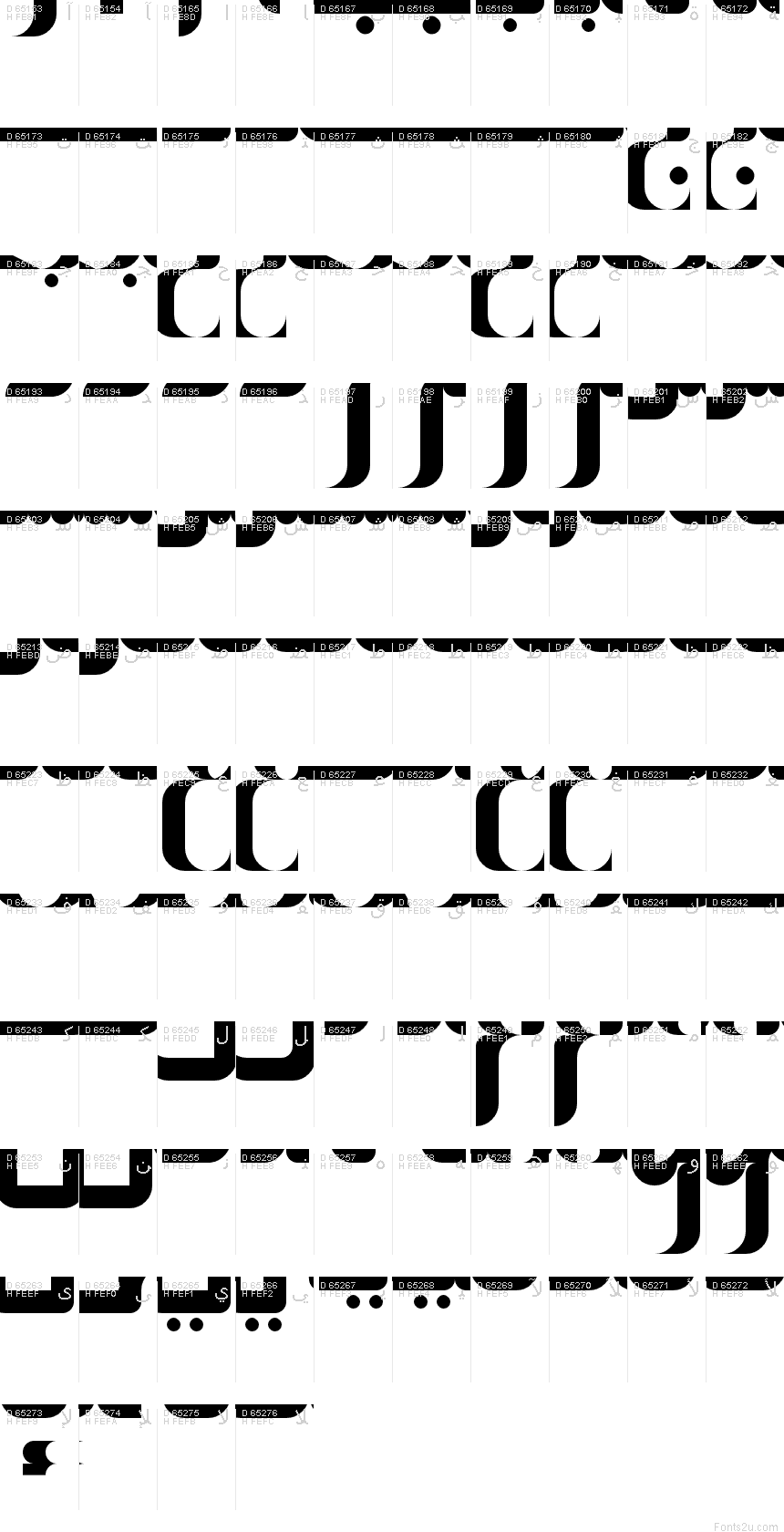
Abitype by abitart of FontShop International GmbH is a free modular Arabic display font built from dense curving shapes that interlock across the line. Broad rounded strokes, compact joins, and abrupt stepped edges make the lettering resemble cut paper assembled into a continuous pattern rather than conventional pen-drawn calligraphy.
Poster design is its clearest setting, particularly for cultural institutions exploring contemporary Arabic lettering, and it can also lend editorial publishing a dense modular texture. Its sculptural forms also suit album artwork and packaging whose imagery draws on geometry, ornament, and strong silhouettes. A single character can become an illustrated emblem on its own.